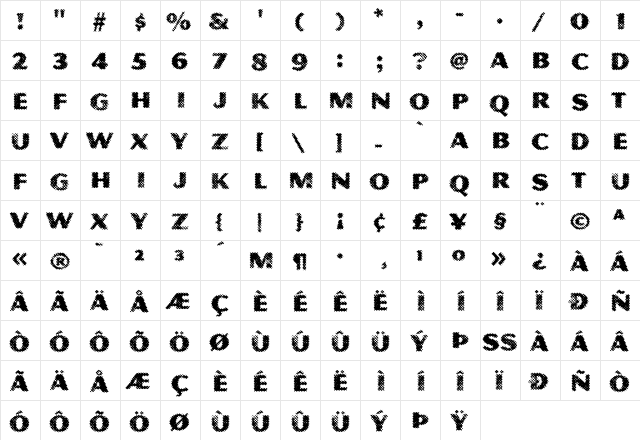
Magnesium Grime
| Style | Grime |
Design Context for Magnesium Typeface
Magnesium is a composed and adaptable typeface that performs quietly and consistently across a wide range of design contexts.